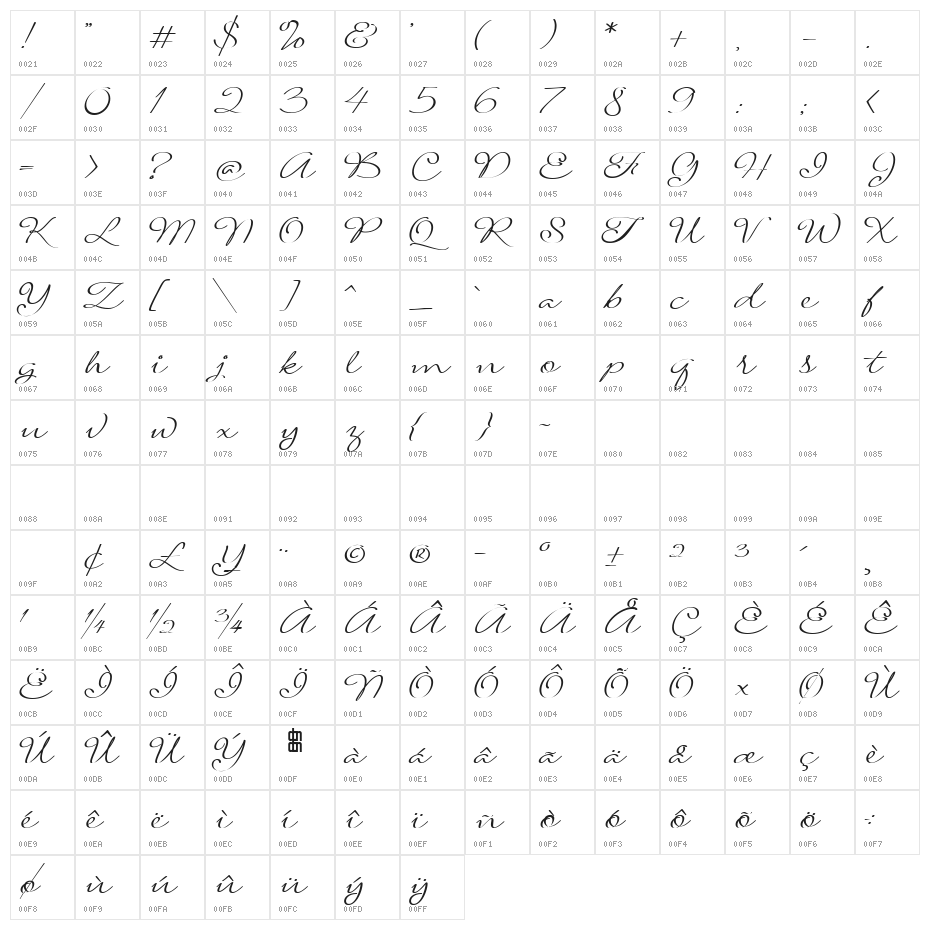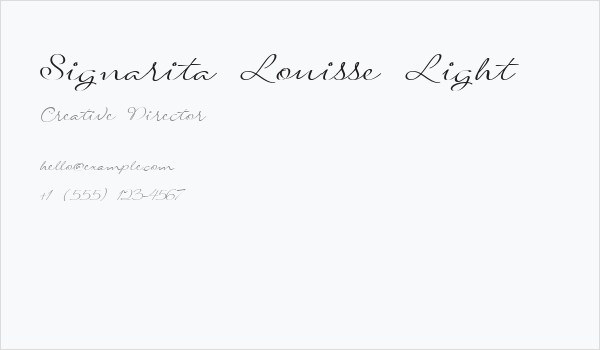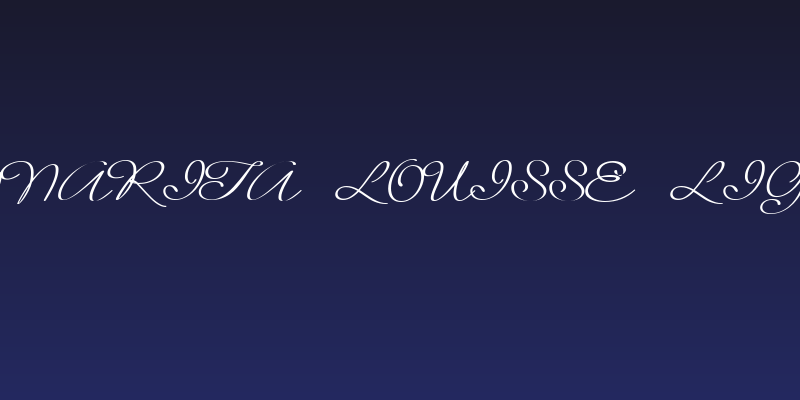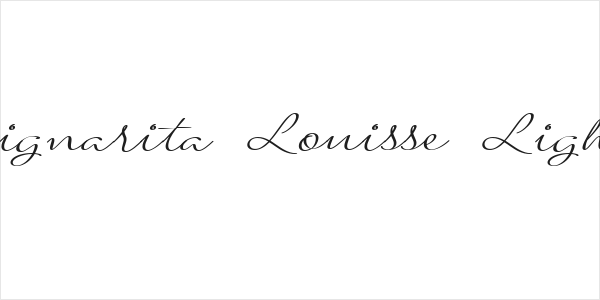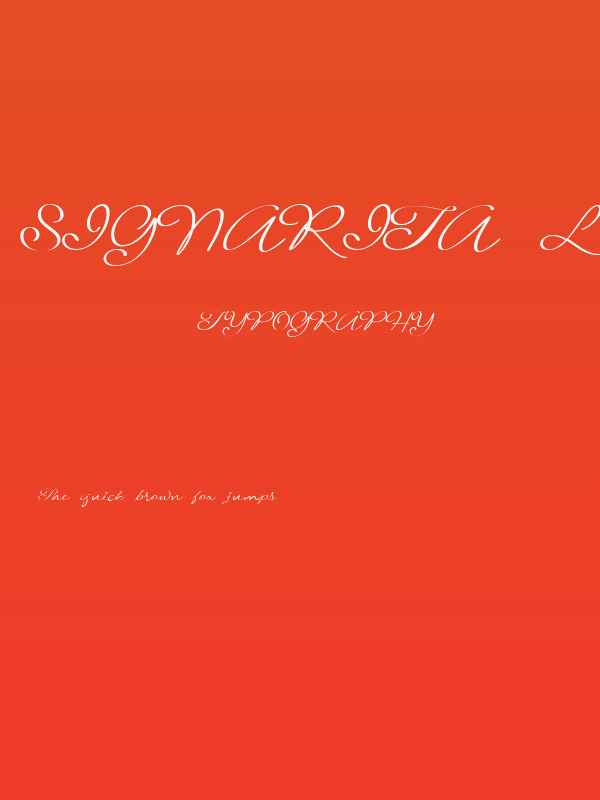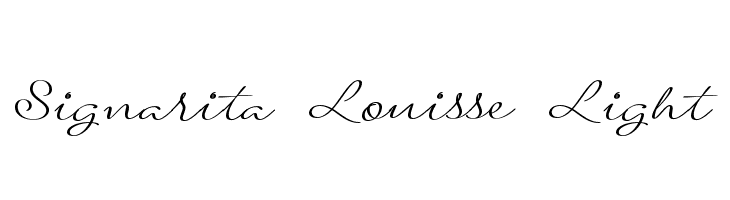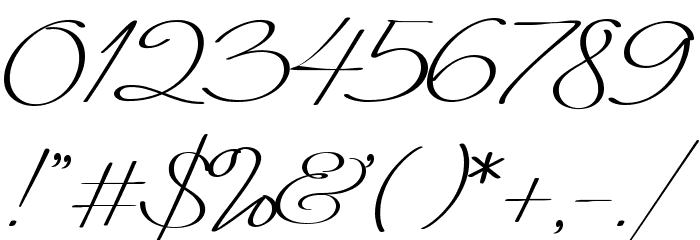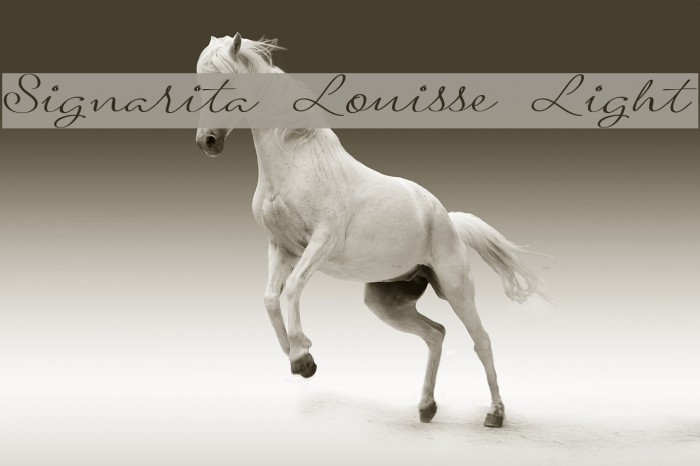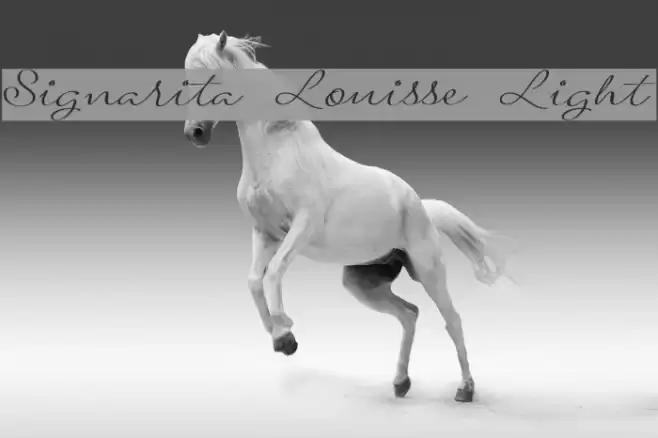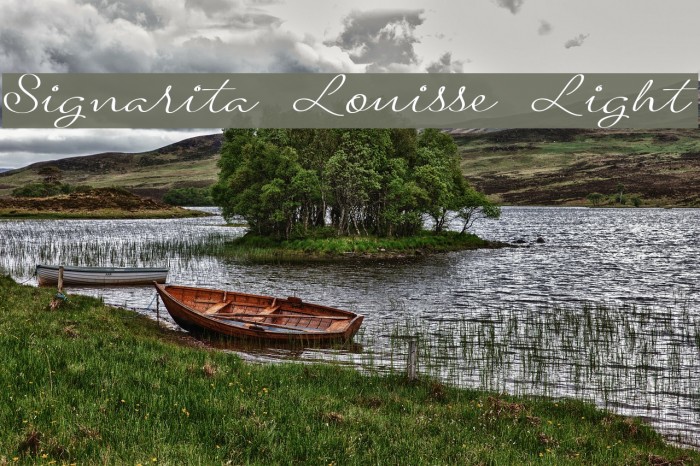
Signarita Louisse Light Font
Signarita Louisse Light Description
This elegant script font features a delicate and flowing design, characterized by its graceful curves and smooth connections between letters. The uppercase letters exhibit a sophisticated flair with extended loops and swashes, while the lowercase letters maintain a consistent fluidity, enhancing readability. The numerals are crafted with the same attention to detail, offering a harmonious blend with the alphabet. Special characters are thoughtfully integrated, maintaining the font's overall aesthetic. This font exudes a sense of refinement and is ideal for projects that require a touch of elegance and sophistication.
| Overall Style | Elegant |
| Use Case | Invitations, Branding, Stationery |
| Proposed Projects | Ideal for wedding invitations, elegant branding, personal stationery, and luxury product packaging. |